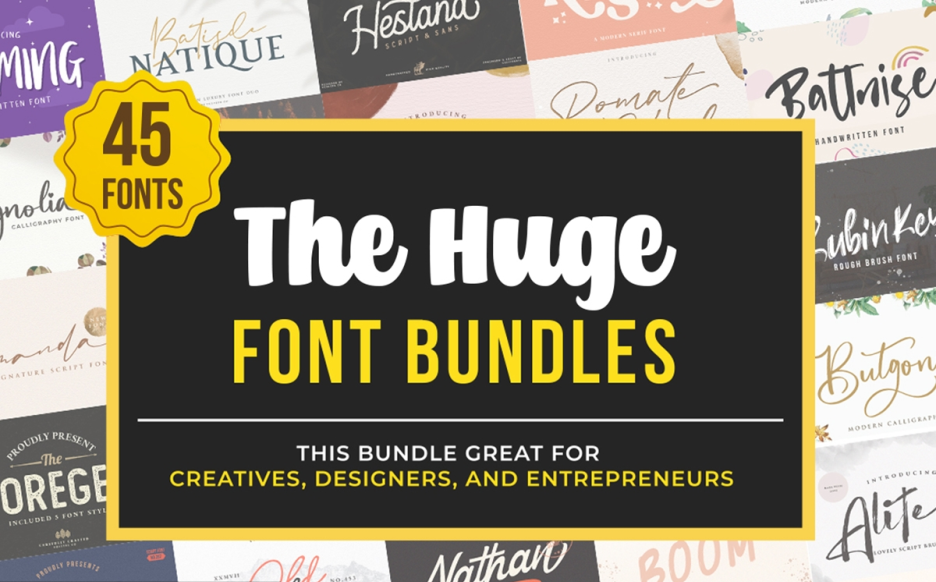
The Huge Font Bundle
The Huge Font Bundle offers a diverse collection of high-quality fonts designed to elevate your creative projects. Whether you’re working on branding, logos, web design, or print materials, this bundle provides a variety of styles to suit your needs.
• Includes multiple font styles: serif, sans-serif, script, and display
• Various weights and styles for flexibility in design
• Serif Fonts: Perfect for elegant branding and print materials
• Sans-Serif Fonts: Ideal for modern web and UI design
• Script Fonts: Great for invitations and personal touches
• Display Fonts: Eye-catching options for headlines and posters
• Mix and match styles for unique branding solutions
• Experiment with different weights to create visual hierarchy